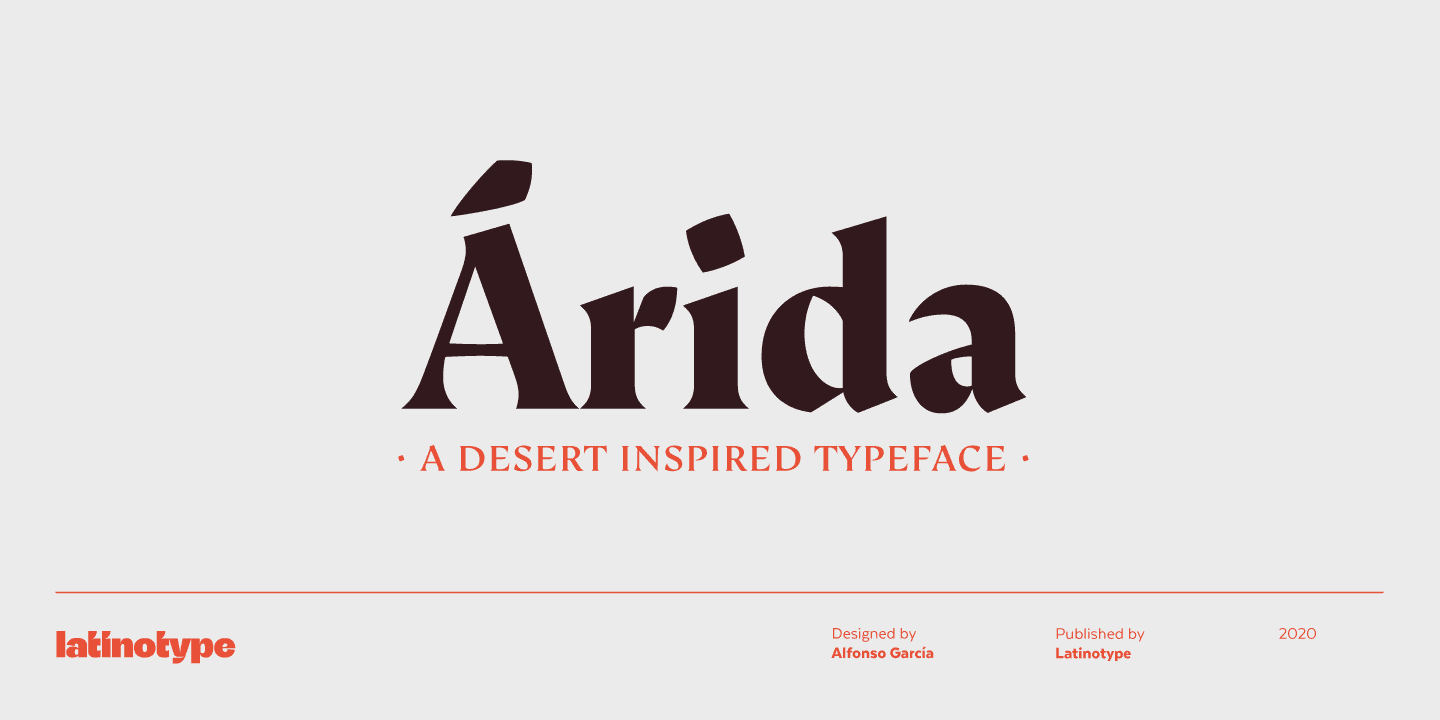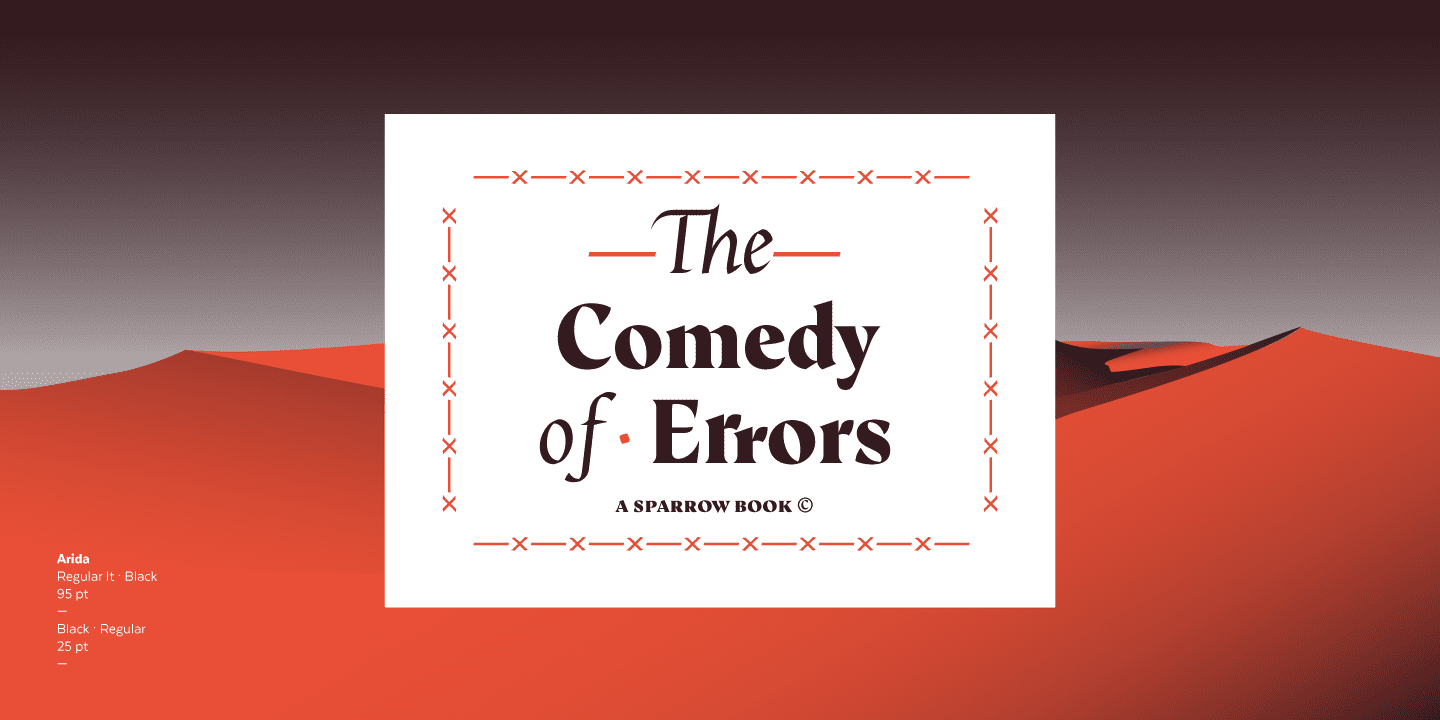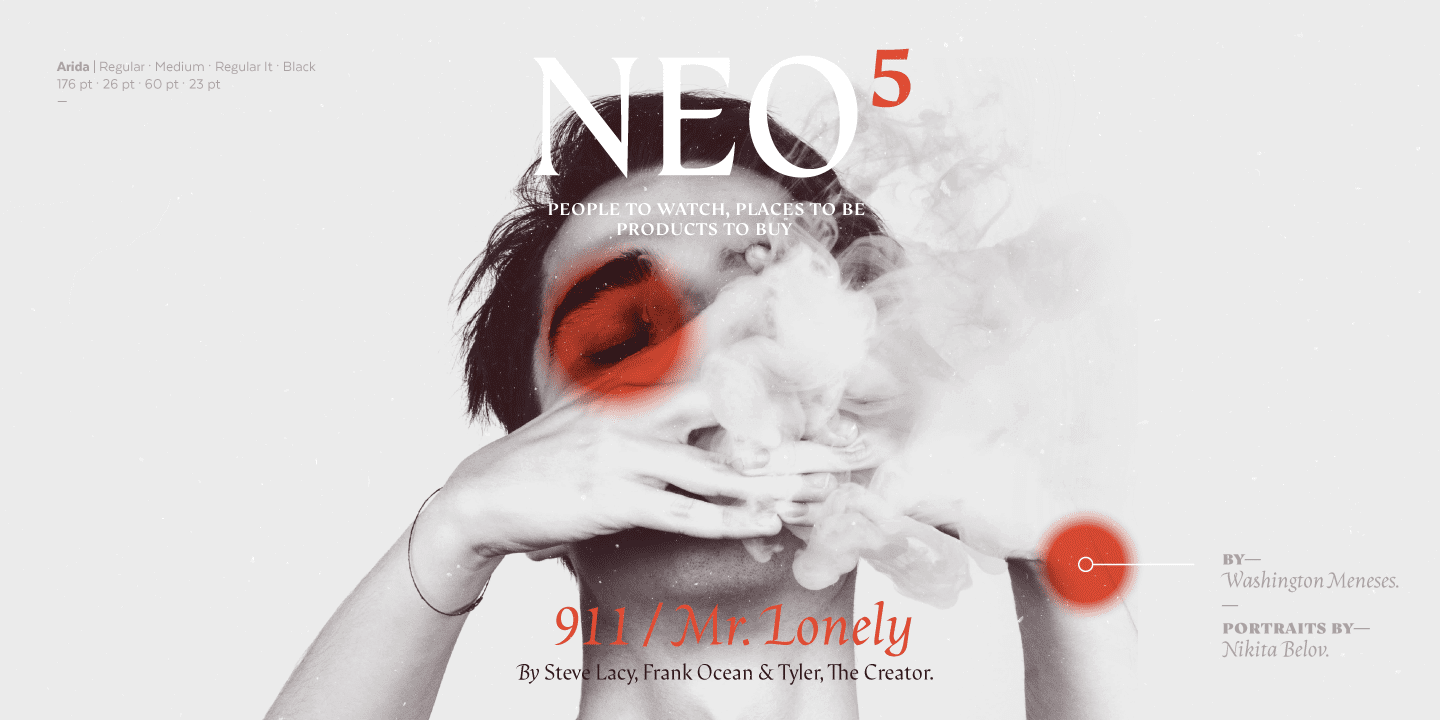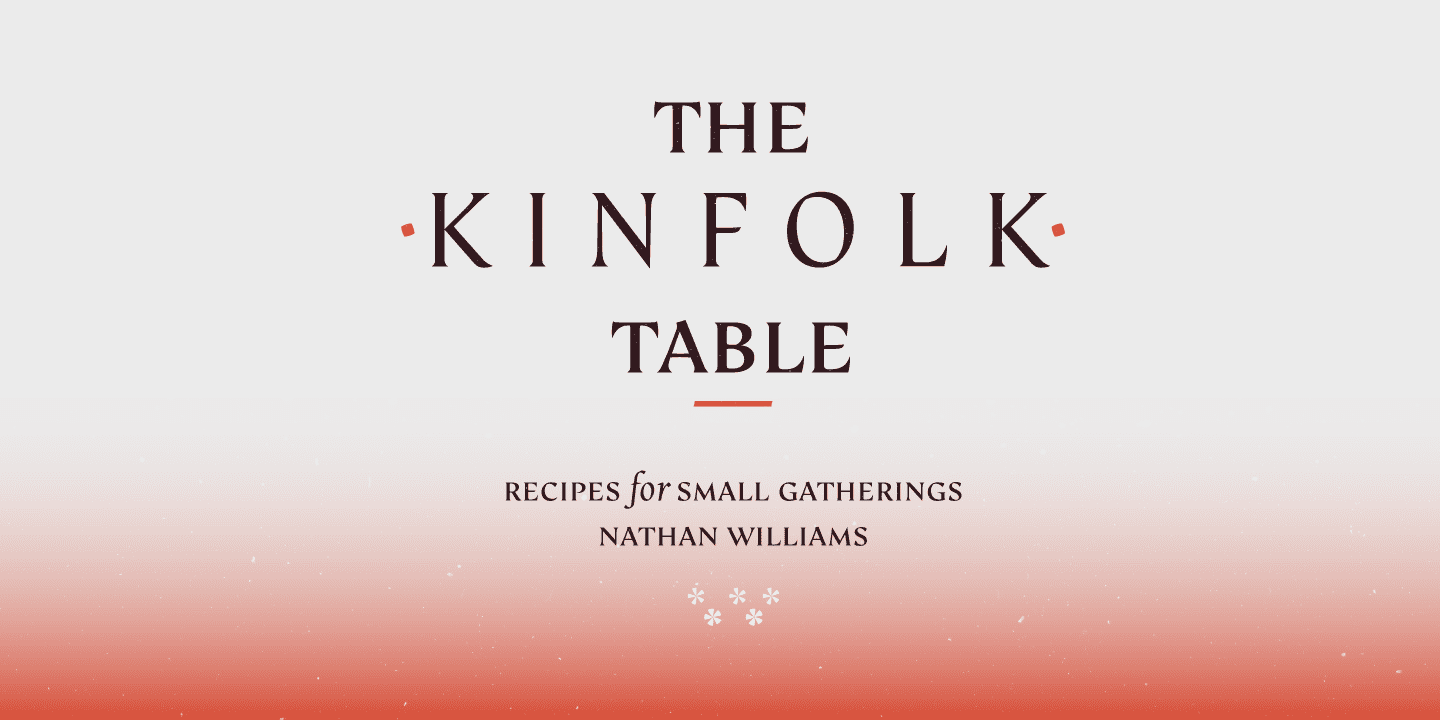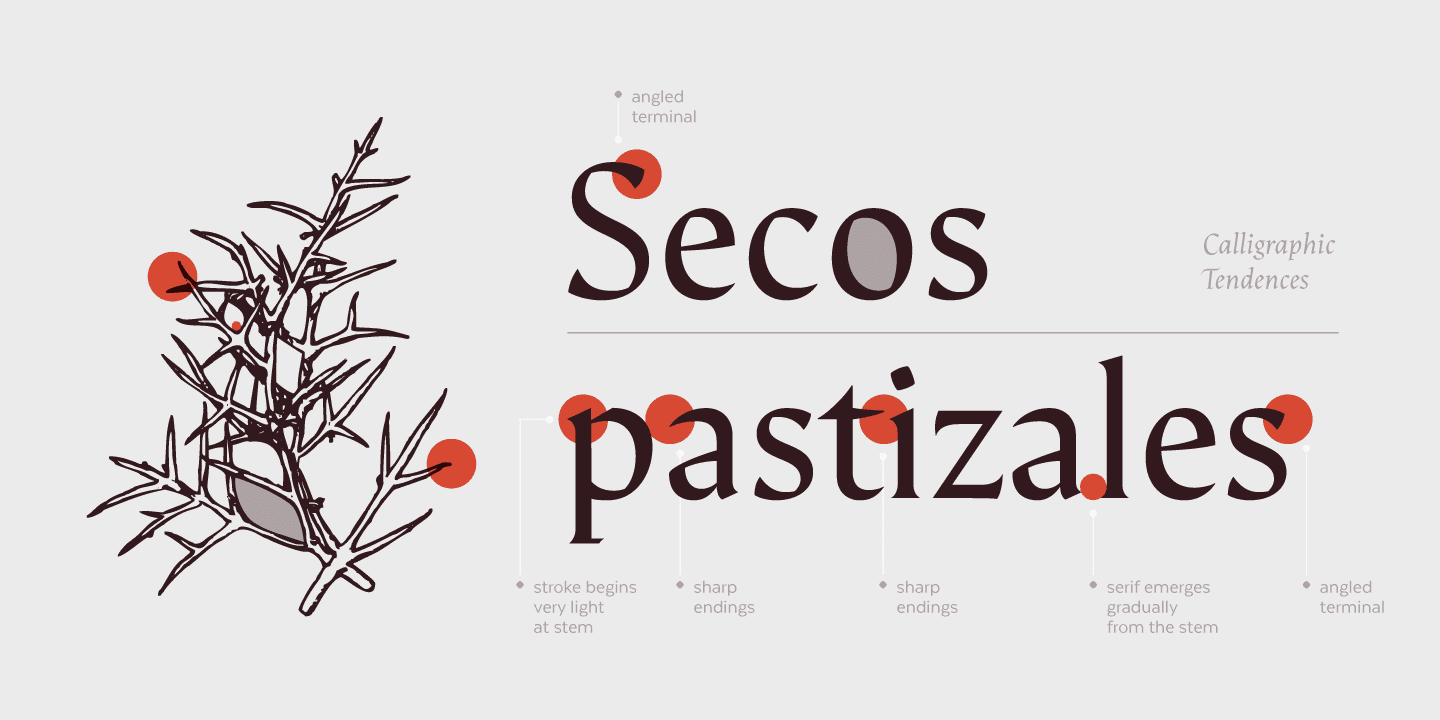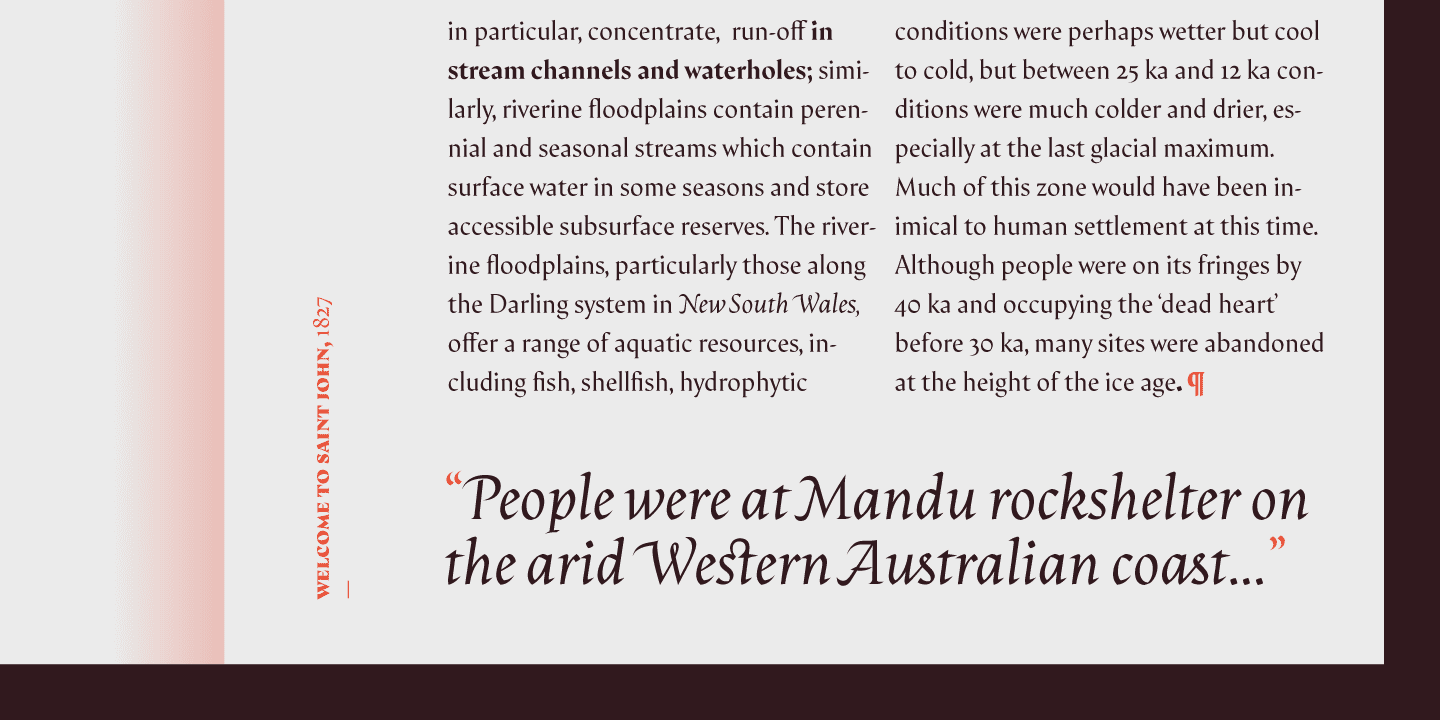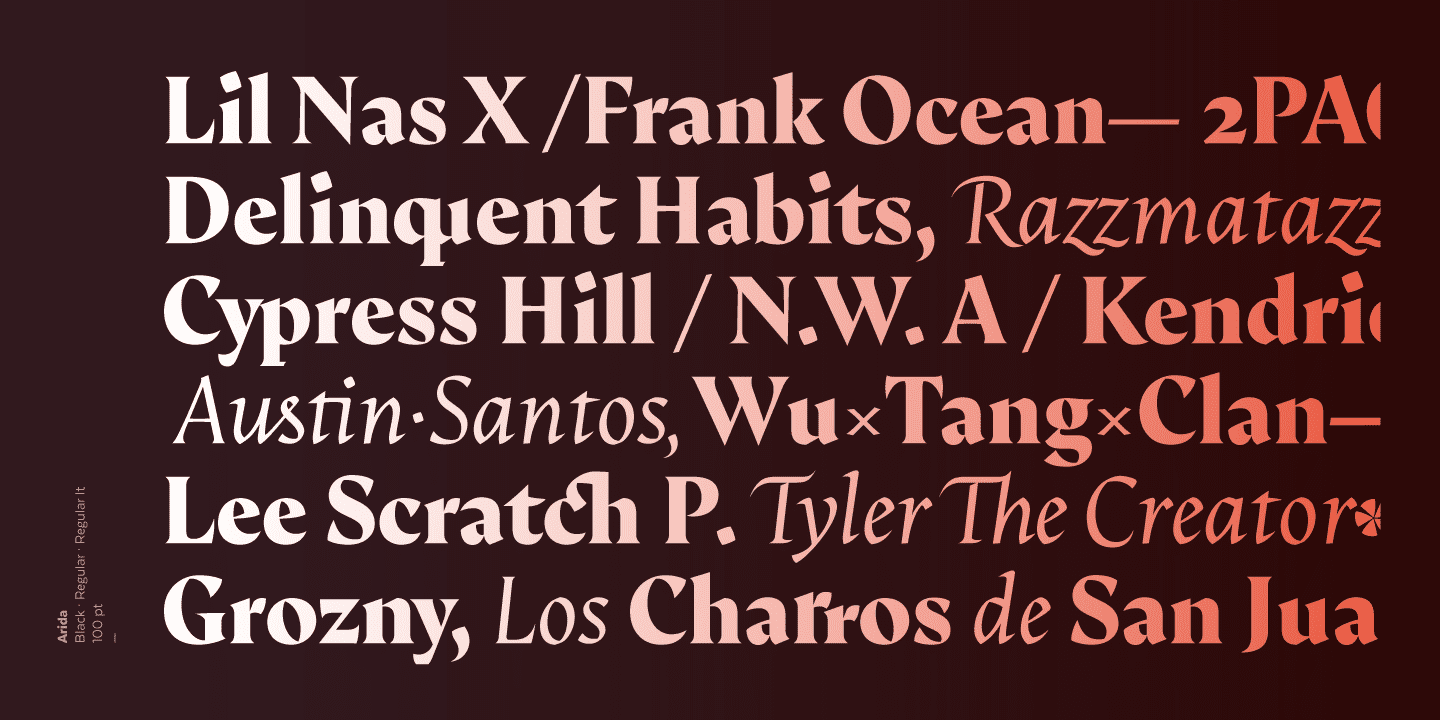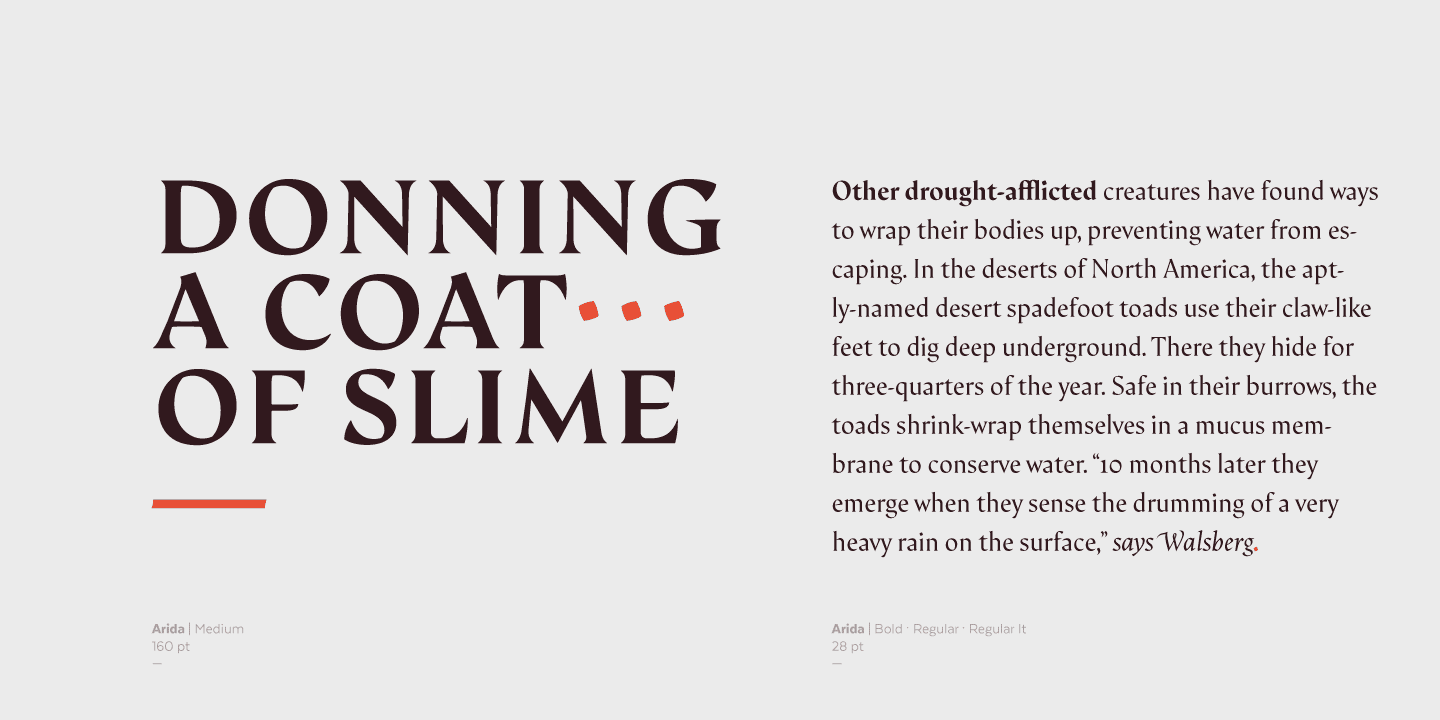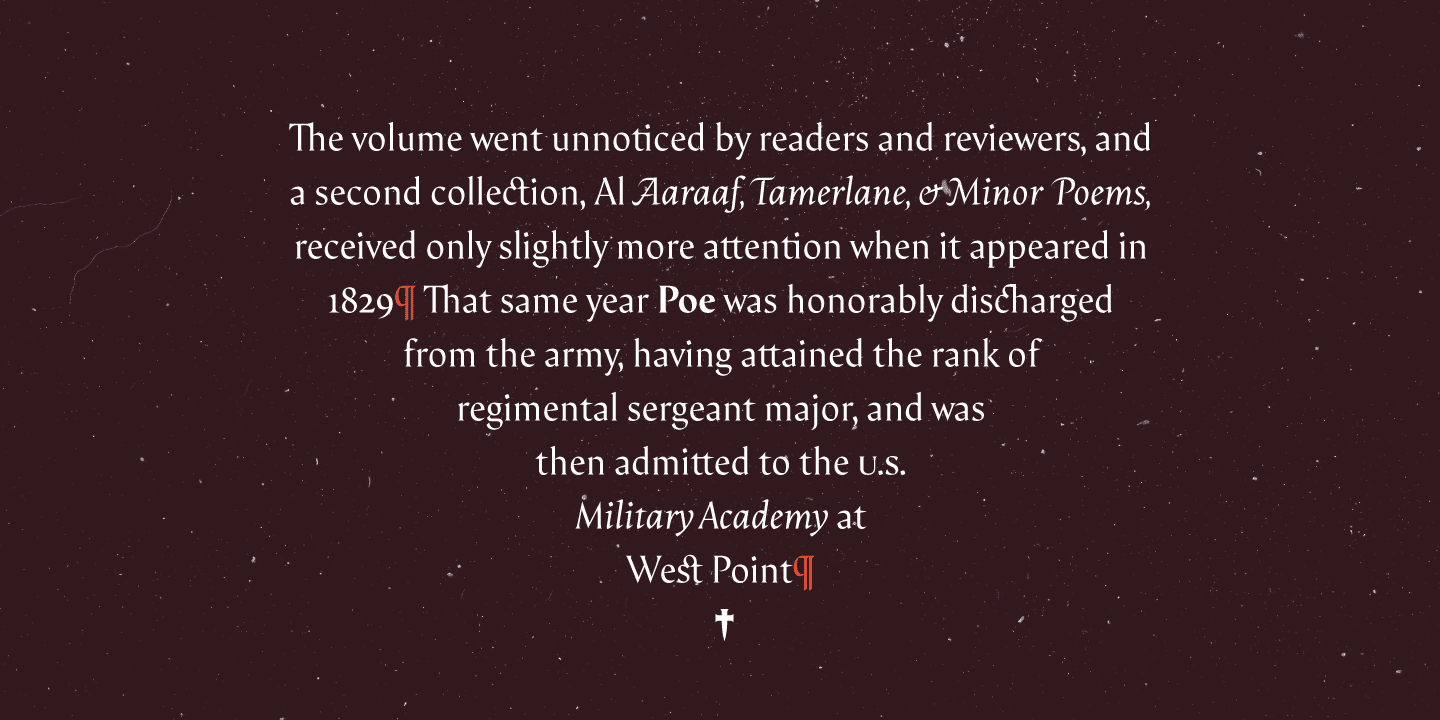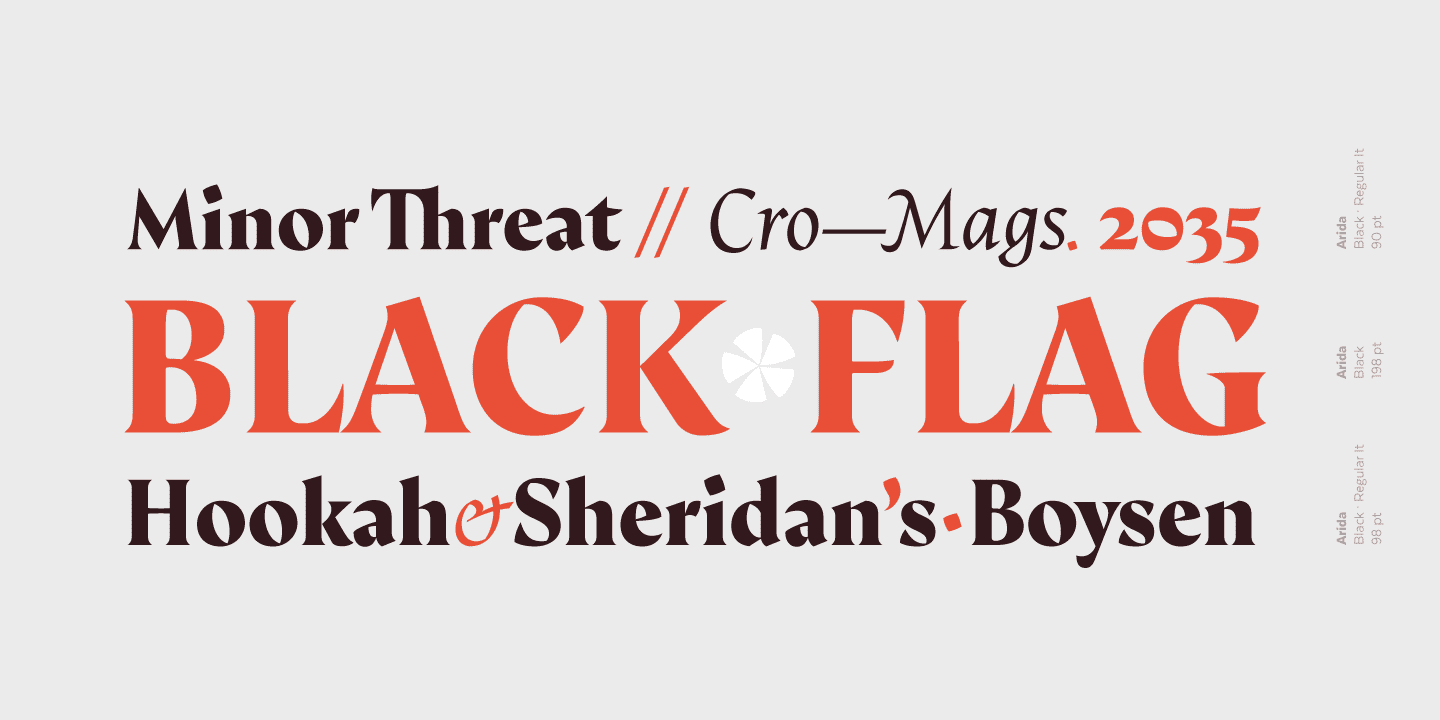
Árida, inspired by the vegetation of the place, looks sharp and aggressive at large sizes but it also feels friendly at a smaller scale?—portraying the dichotomy between humans and nature.
Árida comes in 5 weights, ranging from Regular (with a matching italic) to Black. The Regular variant contains 773 glyphs and its Italic counterpart is composed of 939 glyphs. The font also includes small caps, different styles of figures, ligatures, and stylistic and contextual alternates, among other OpenType features.